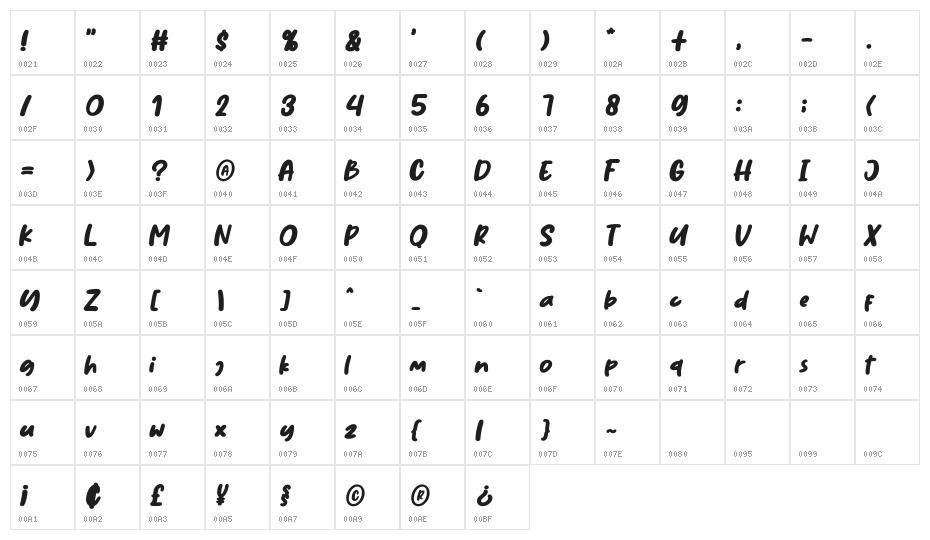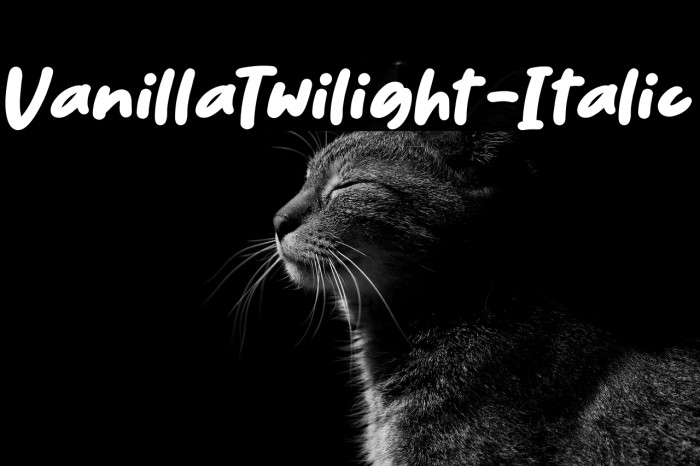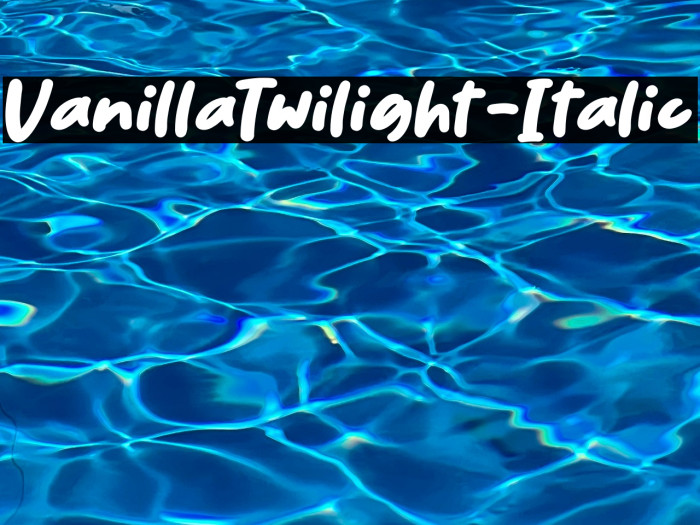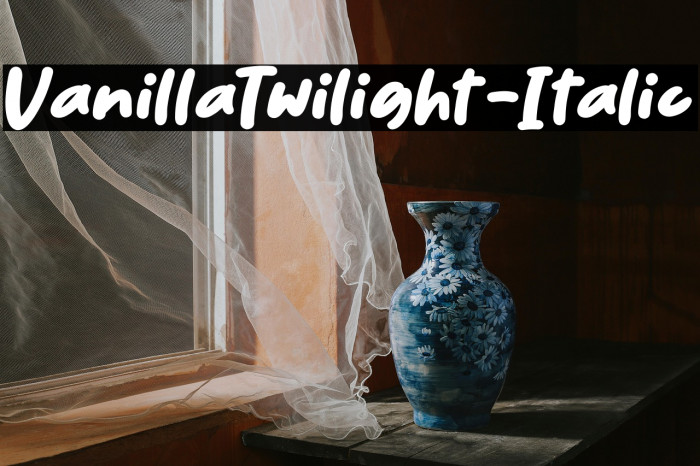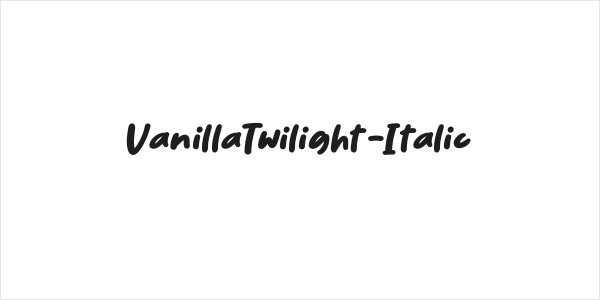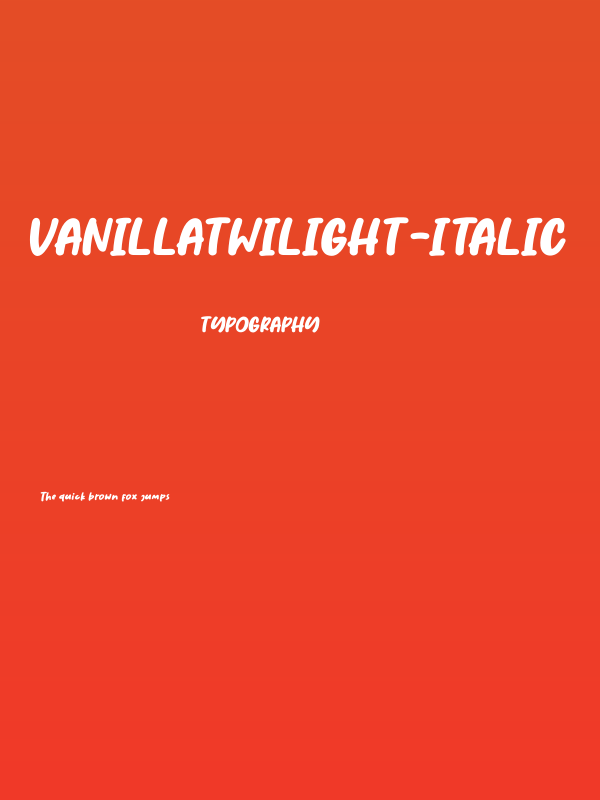
VanillaTwilight-Italic Font
VanillaTwilight-Italic Description
This font features a playful and energetic style, characterized by its bold, rounded strokes and slightly slanted italic form. The letters are closely spaced, giving a sense of cohesion and flow. The uppercase and lowercase letters maintain a consistent style, with smooth curves and a hand-drawn appearance. The numerals and special characters follow the same design principles, ensuring uniformity across all glyphs. This font exudes a casual and friendly vibe, making it suitable for projects that aim to convey warmth and approachability.
| Proposed Projects | Ideal for greeting cards, children's books, playful branding, and social media graphics. |